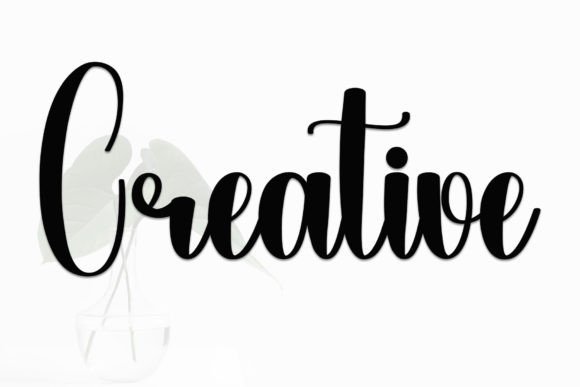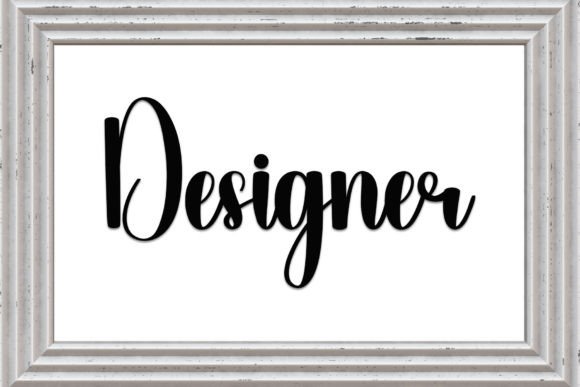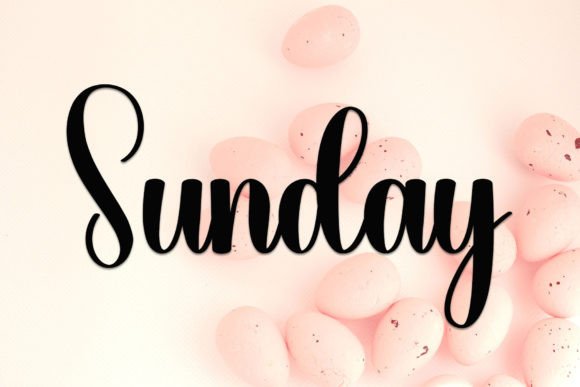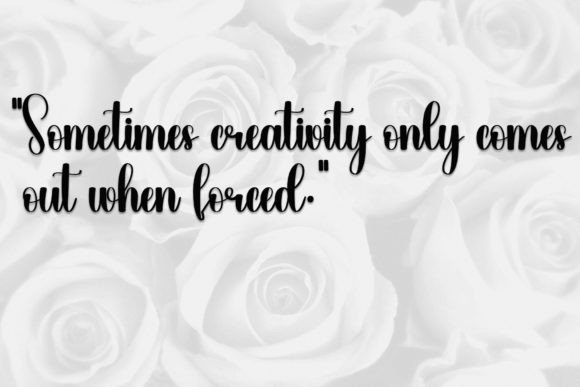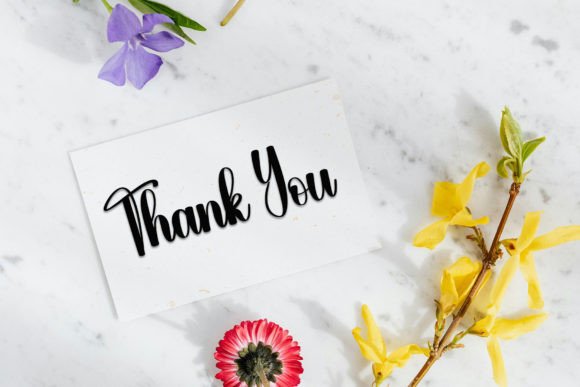
I’ll never forget the design project that led me to discover the Fishing Font. I was working on a branding project for a new outdoor gear company, and I needed a font that would evoke a sense of adventure, joy, and connection to nature. As I scrolled through font after font, nothing seemed quite right – until I stumbled upon Fishing Font. Its sweet, cursive script immediately caught my eye, and I knew I had found the perfect fit.
So, what makes Fishing Font so special? Here are a few things that I absolutely love:
- ✨ Sweet and Cursive: Fishing Font has a beautiful, flowing script that’s perfect for adding a touch of elegance to your designs.
- ✅ Highly Versatile: This font can be used for a wide range of projects, from branding and packaging to invitations and social media graphics.
- 💕 Emotional Connection: The gentle, cursive strokes of Fishing Font evoke a sense of joy, romance, and whimsy – perfect for projects that require a personal touch.
Of course, no font is perfect, and Fishing Font has a few quirks to keep in mind:
- 🤔 Limited Contrast: While Fishing Font has a lovely flow, it can be a bit tricky to use for designs that require high contrast between letters.
- ⚠️ Not Ideal for Body Text: Due to its cursive nature, Fishing Font is best suited for headlines, titles, and short paragraphs – not for lengthy body text.
The Story Behind Fishing Font
Fishing Font was designed by a talented type designer who wanted to capture the carefree spirit of a summer day by the lake. Inspired by the gentle lapping of waves against the shore, the designer crafted a font that’s both soothing and joyful. While the designer’s story may be fictional, the end result is a font that’s undeniably charming.
- Q: Is Fishing Font suitable for body text?
- A: While Fishing Font is beautiful, it’s best suited for headlines, titles, and short paragraphs. Its cursive nature can make it tricky to read in long blocks of text.
- Q: Does Fishing Font come with any special features?
- A: Yes! Fishing Font includes OpenType features like glyphs and stylistic alternates, which can add variety and interest to your text.